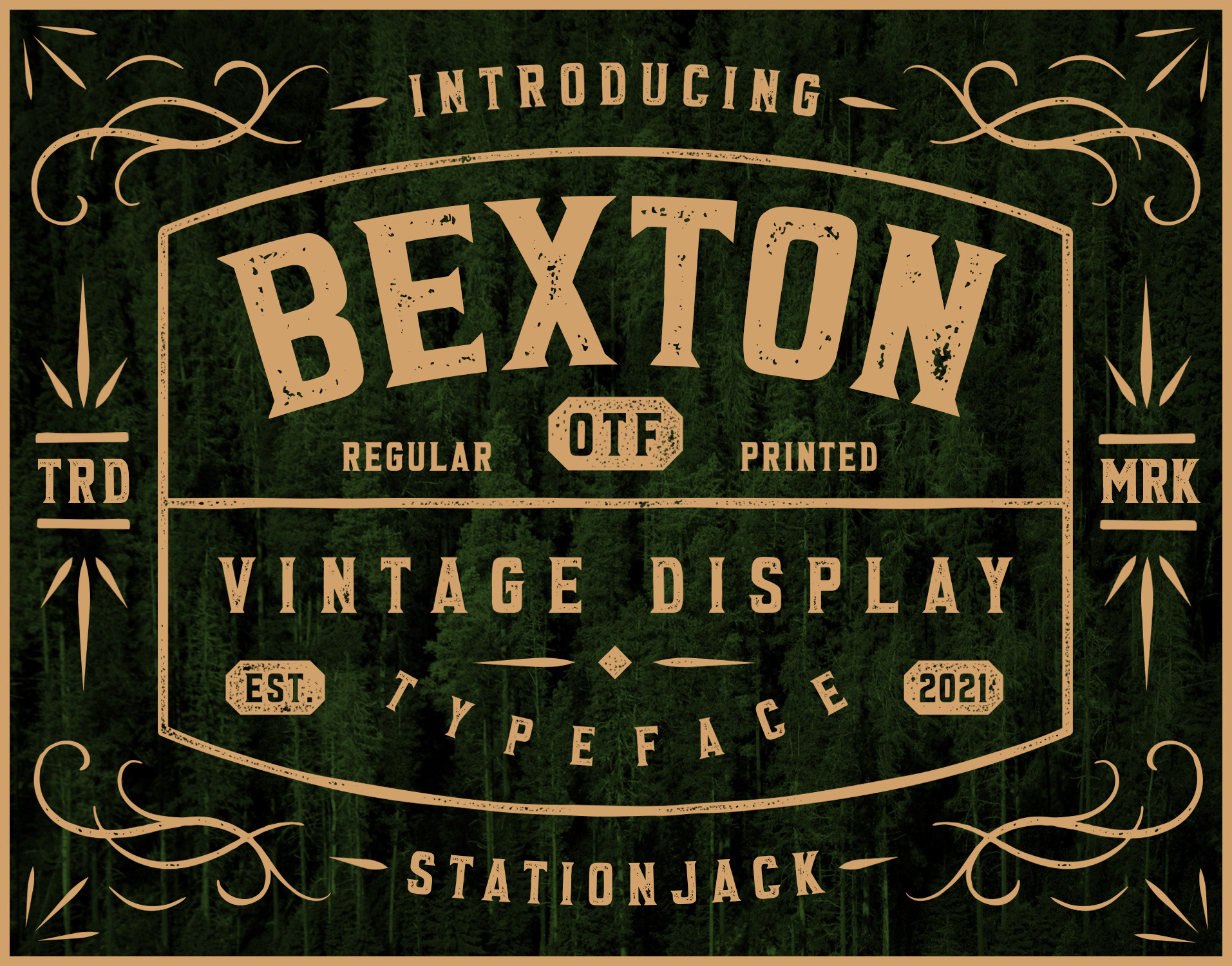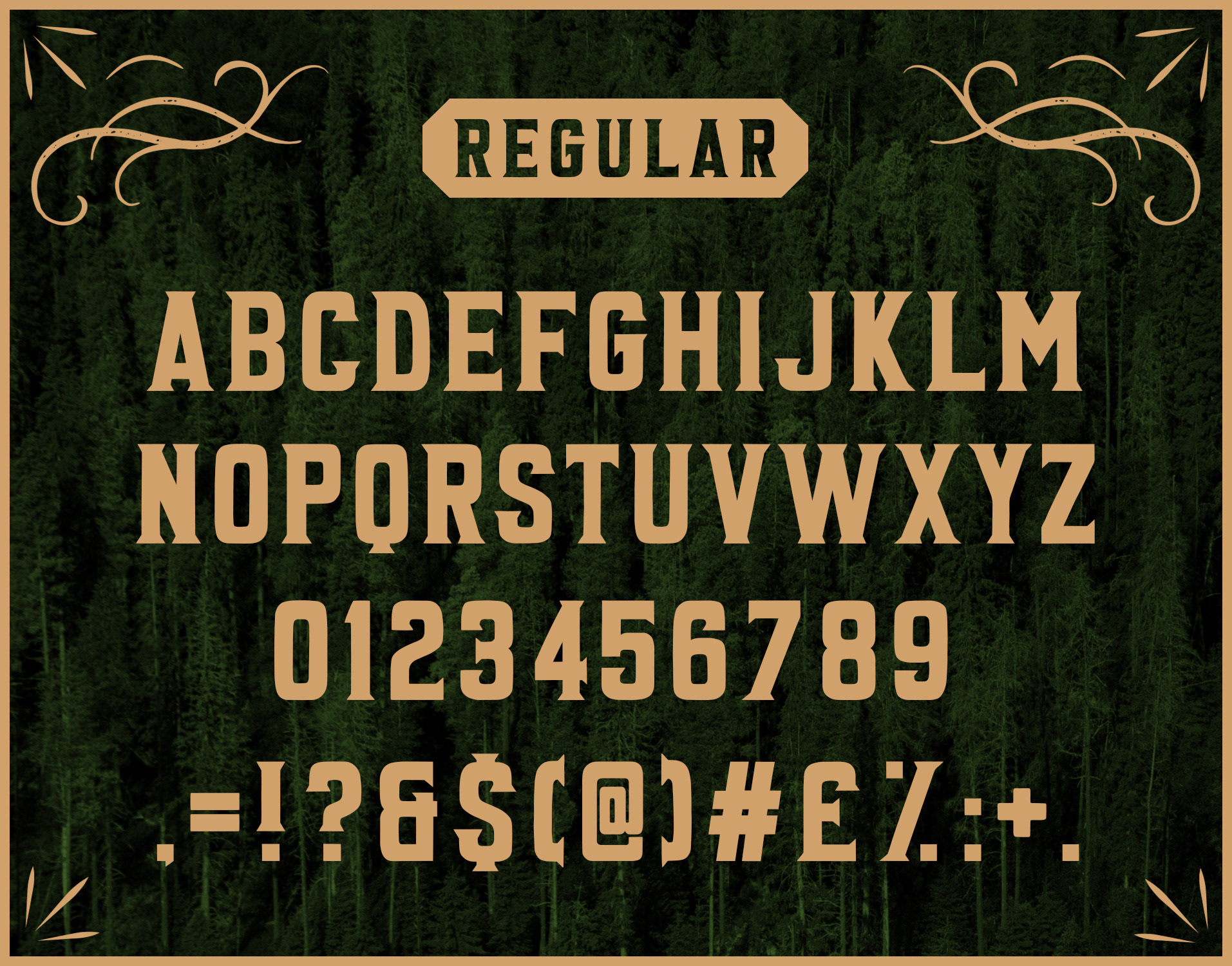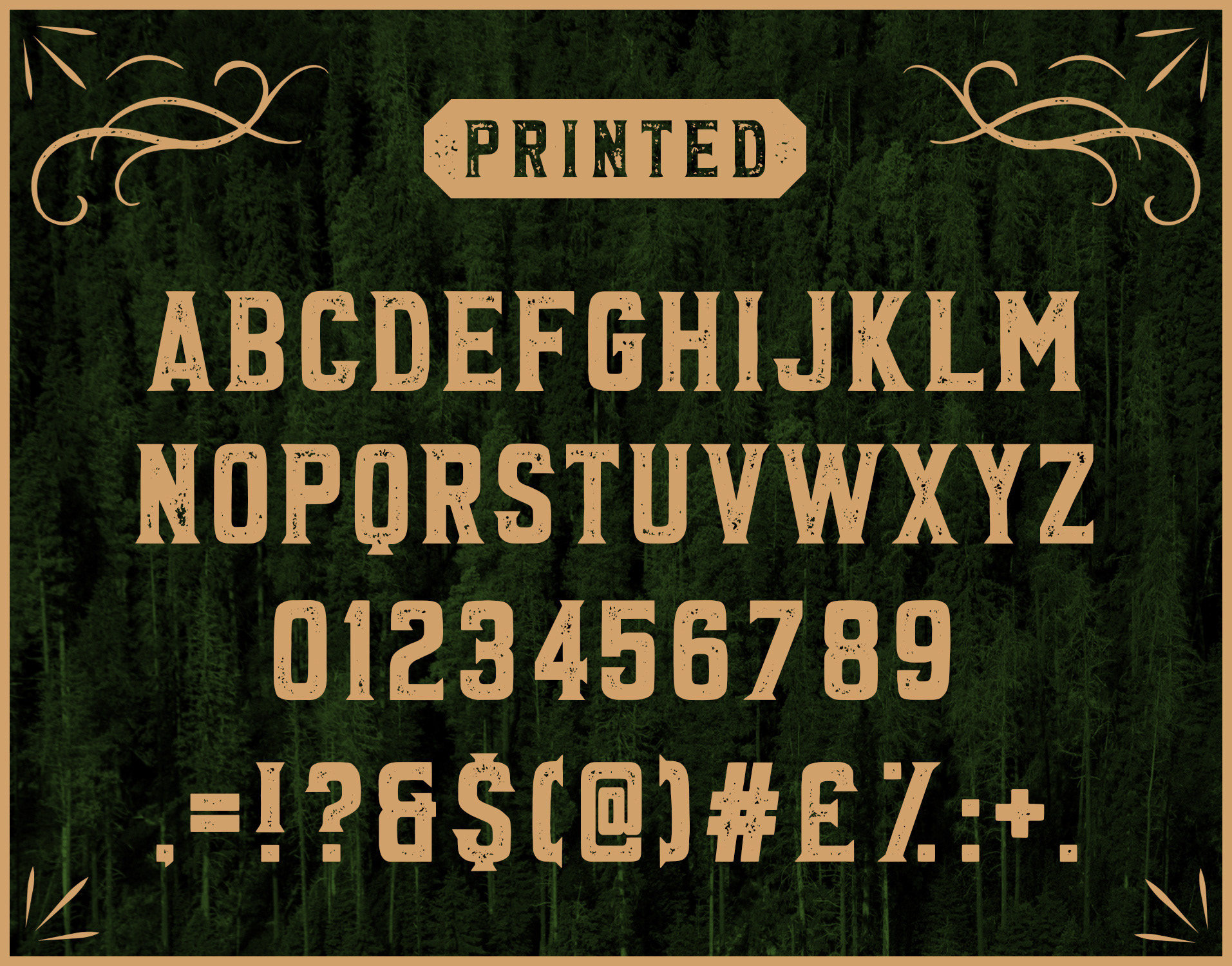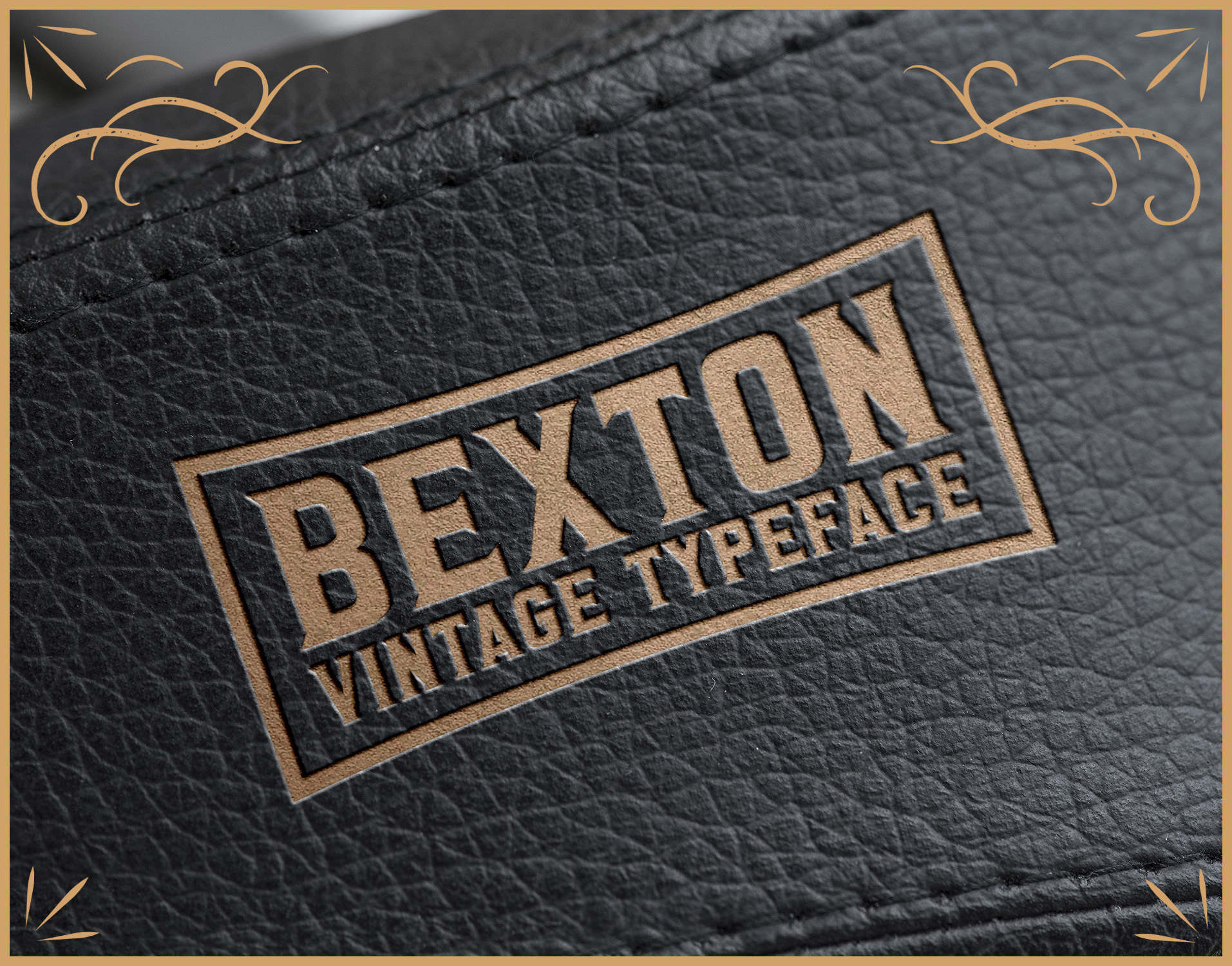
Belton is a vintage display typeface based on fonts from the early twentieth century.
This font has 2 styles including Regular and Printed. All fonts come with upper case letters, numbers and a selection of punctuation.